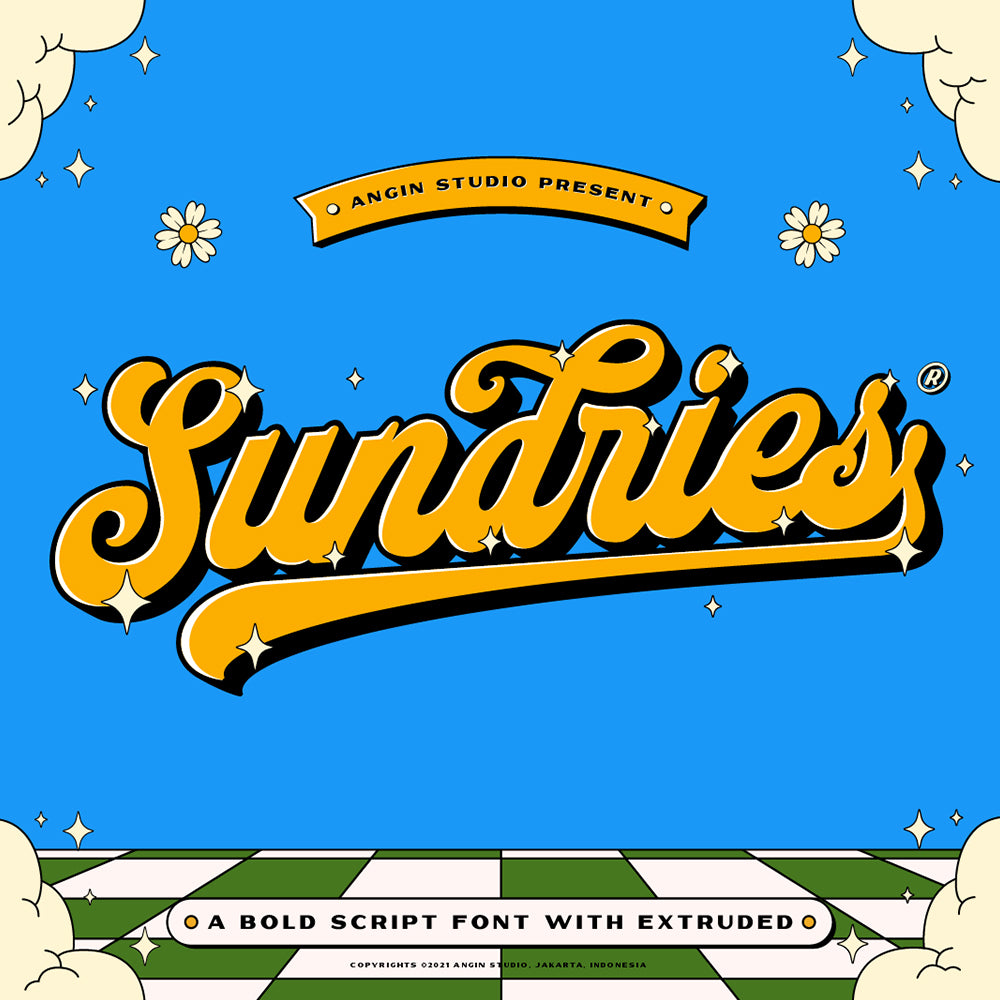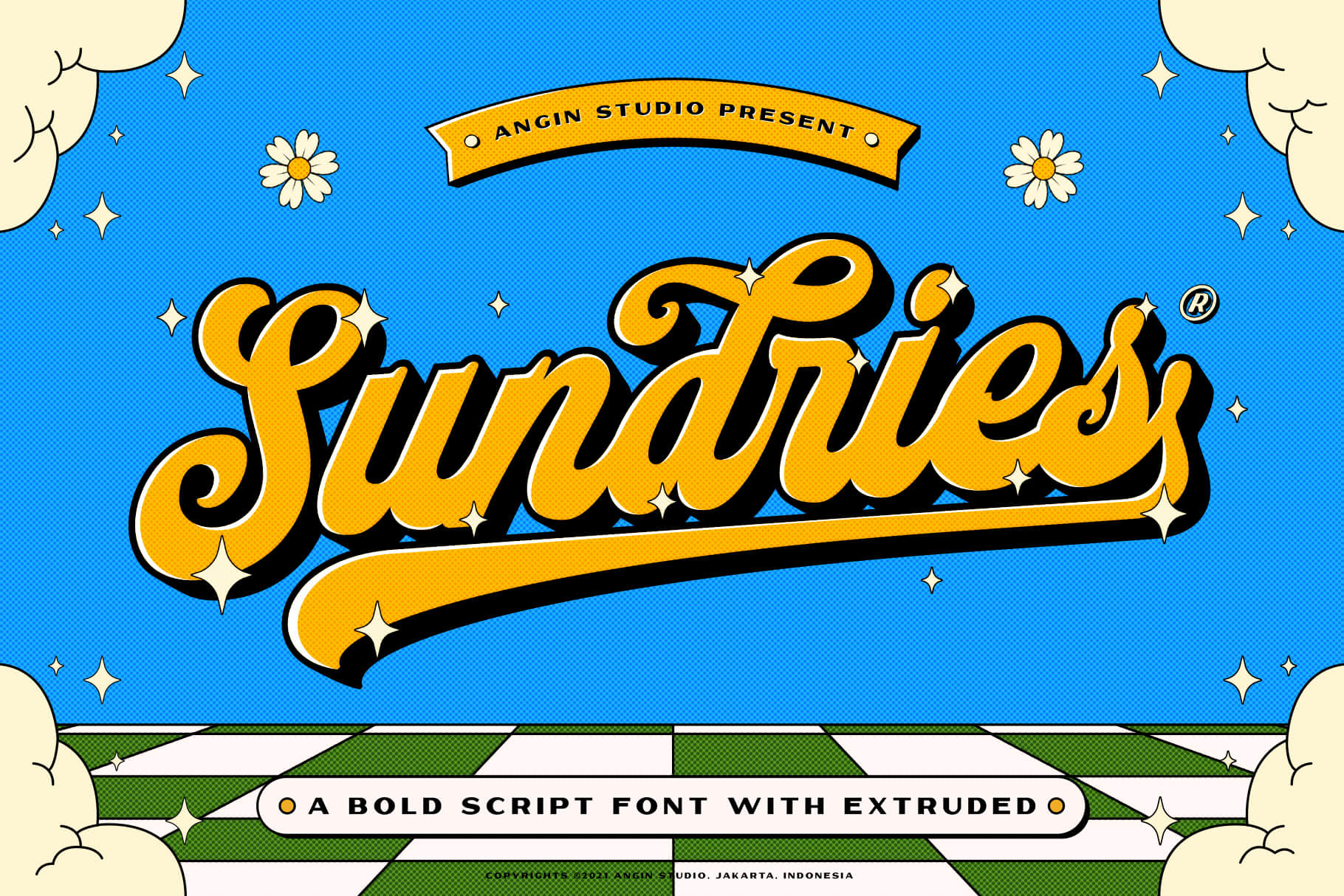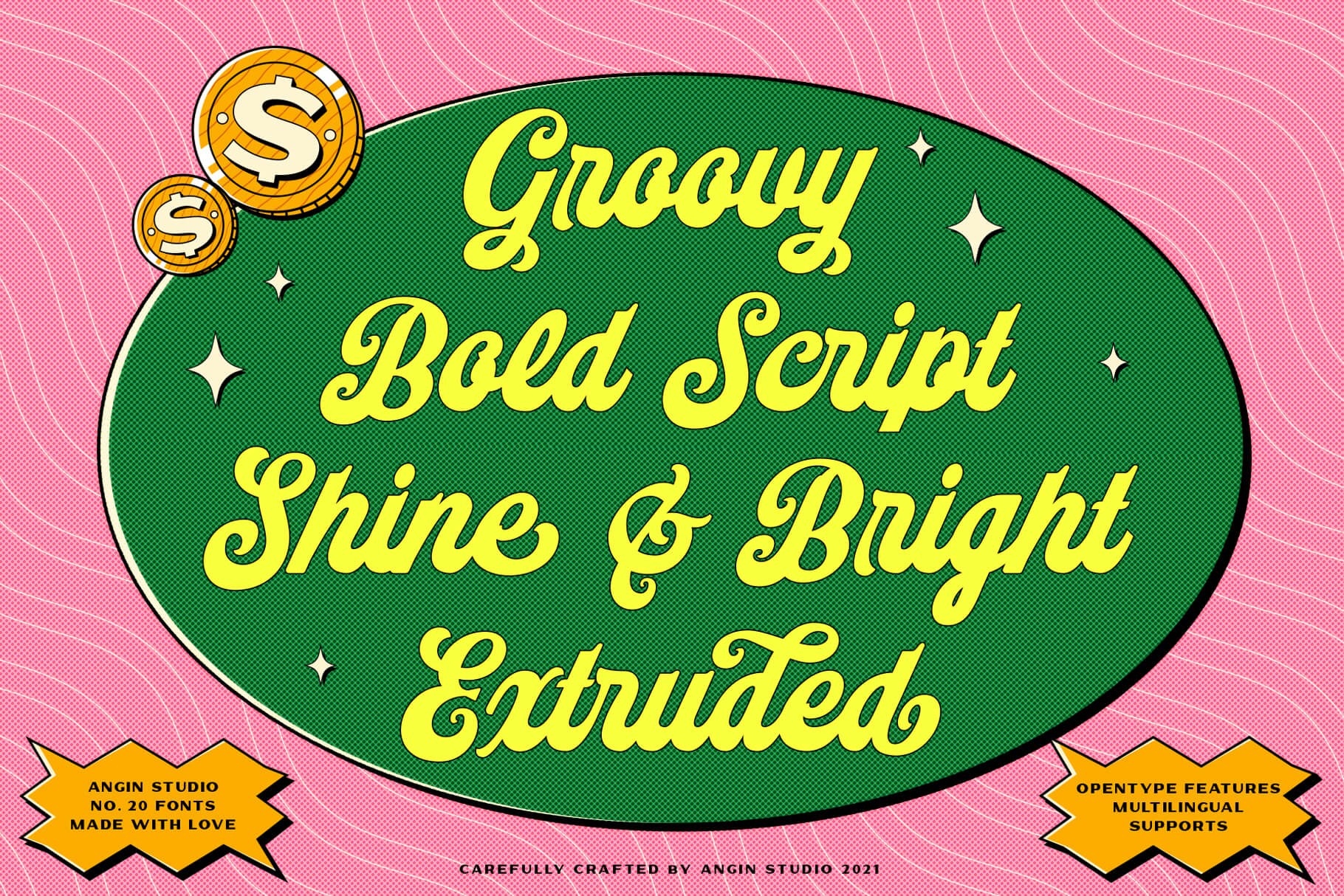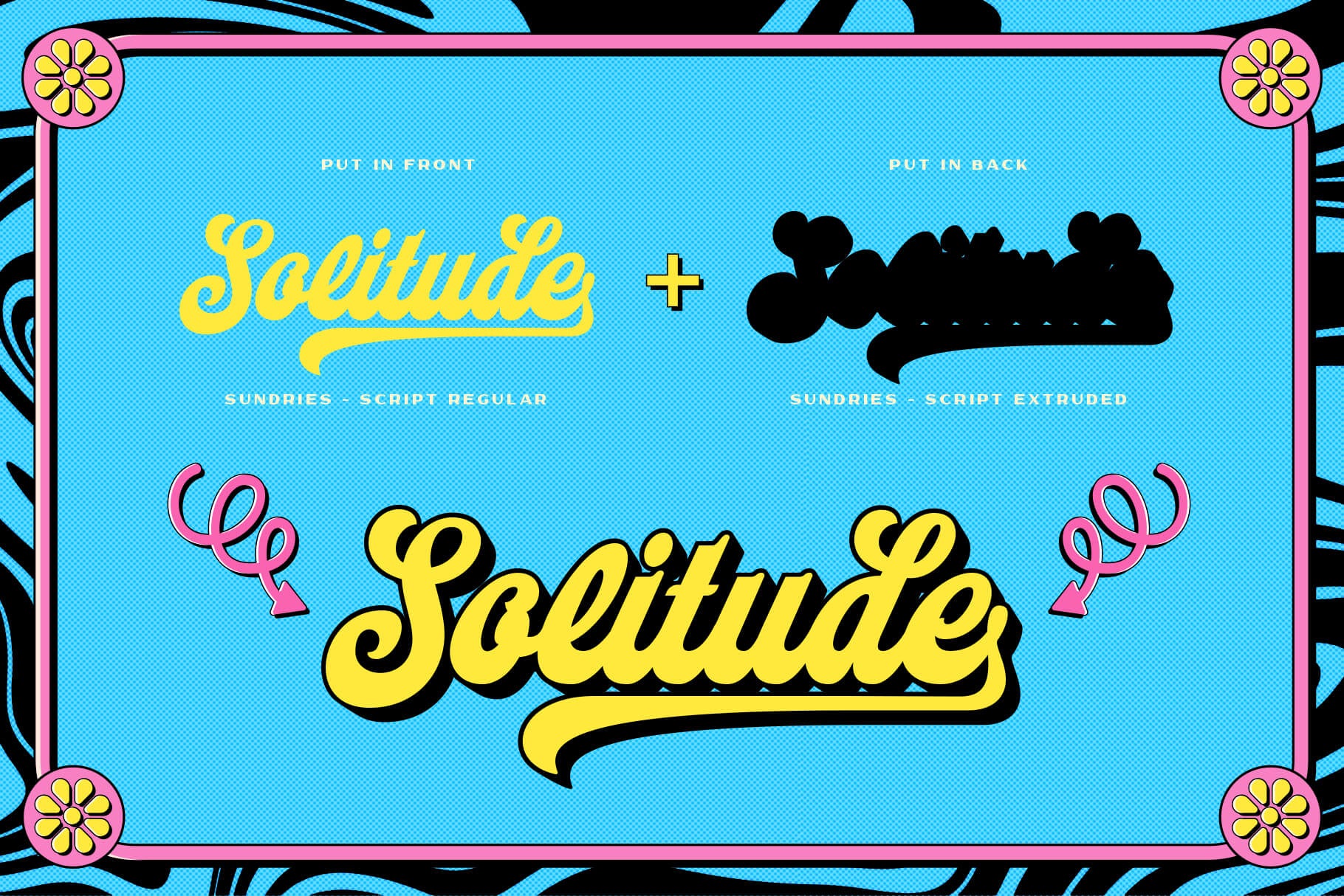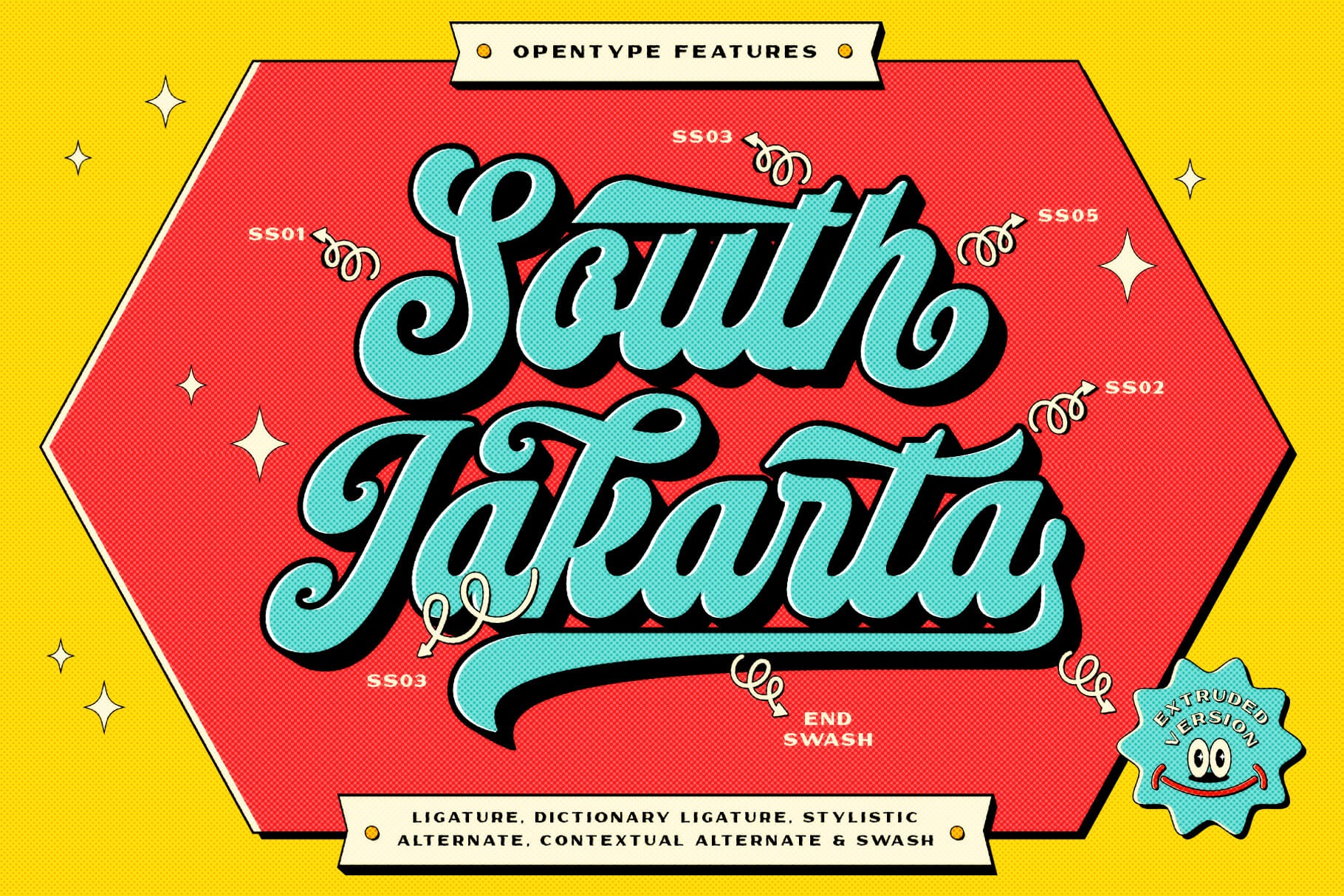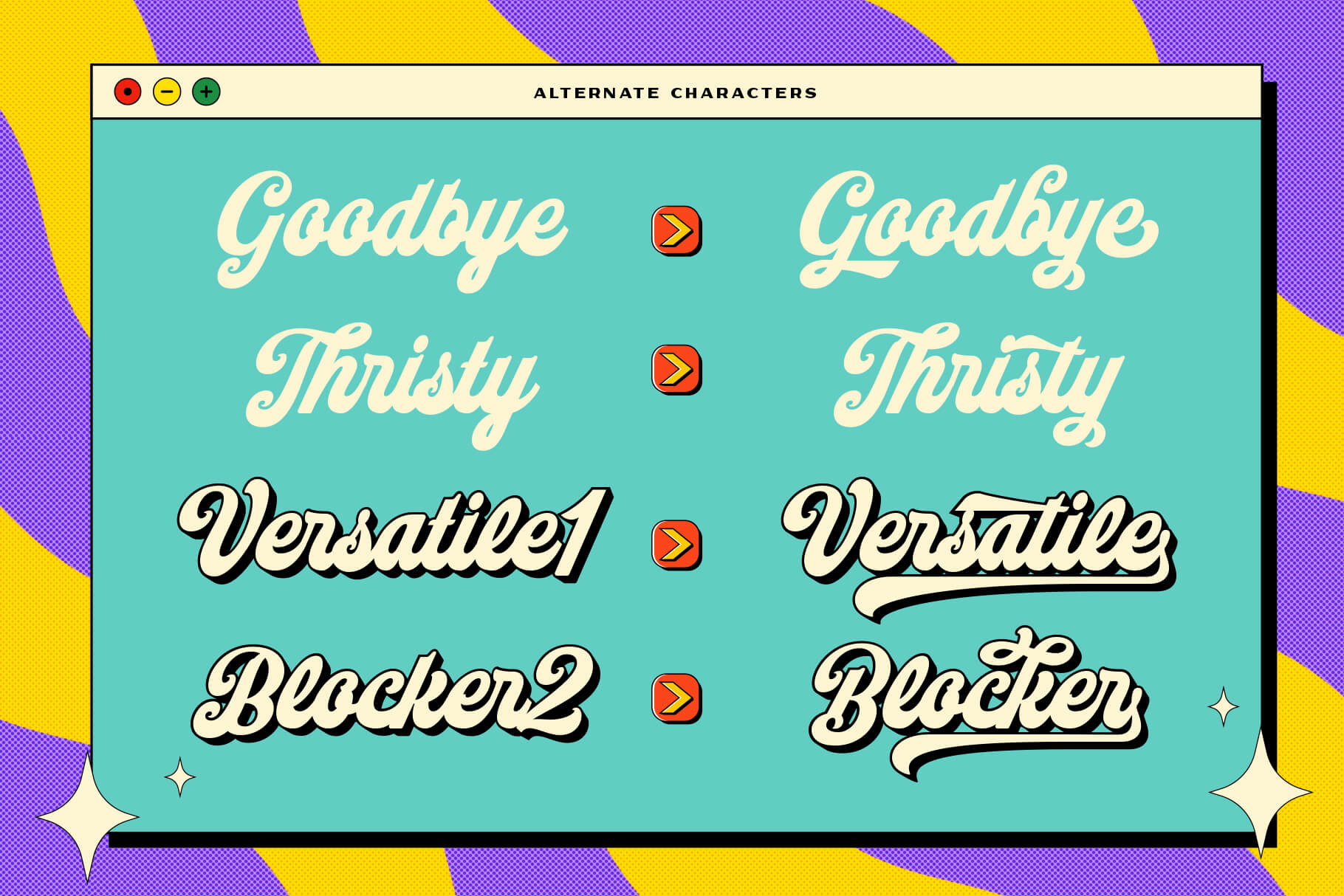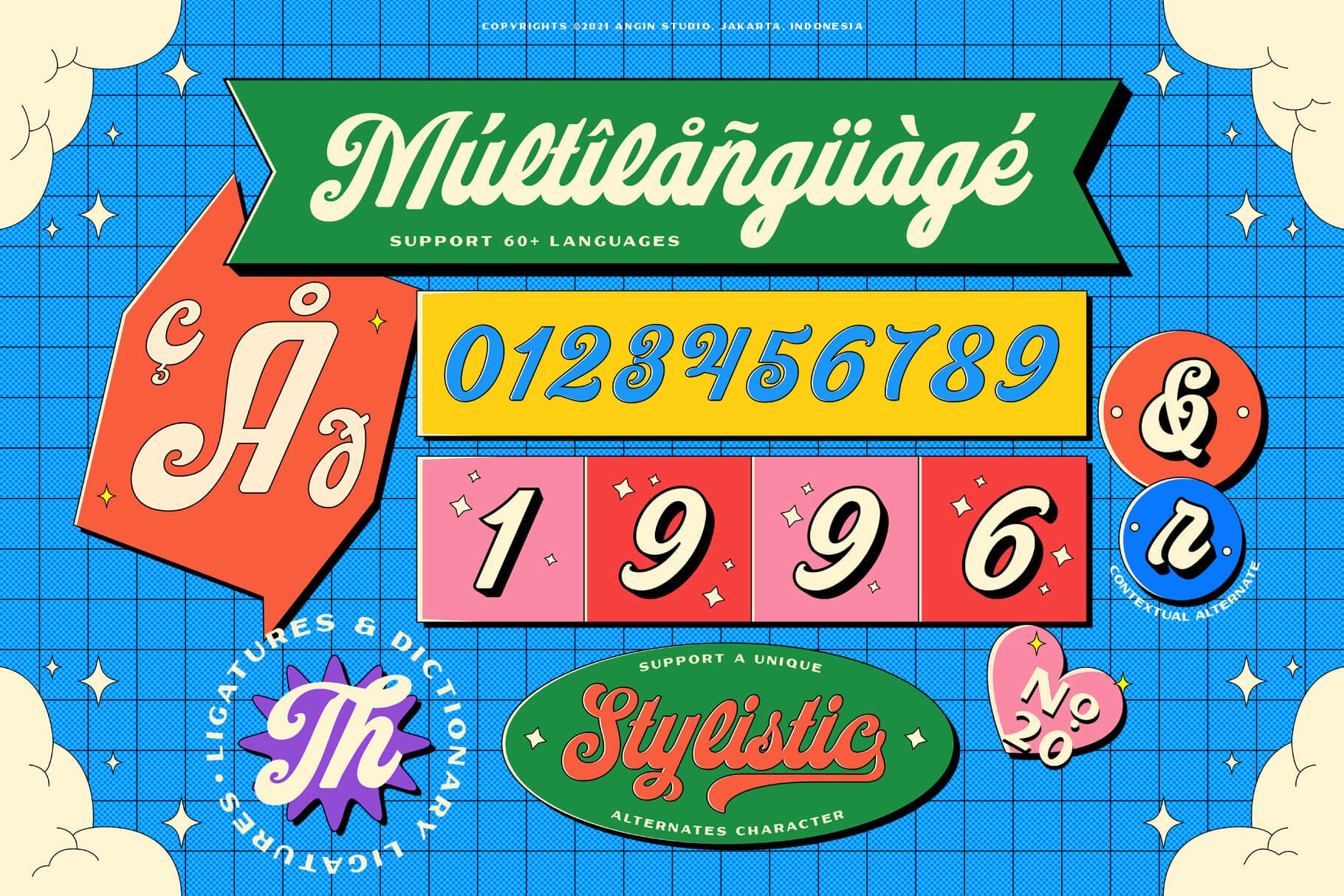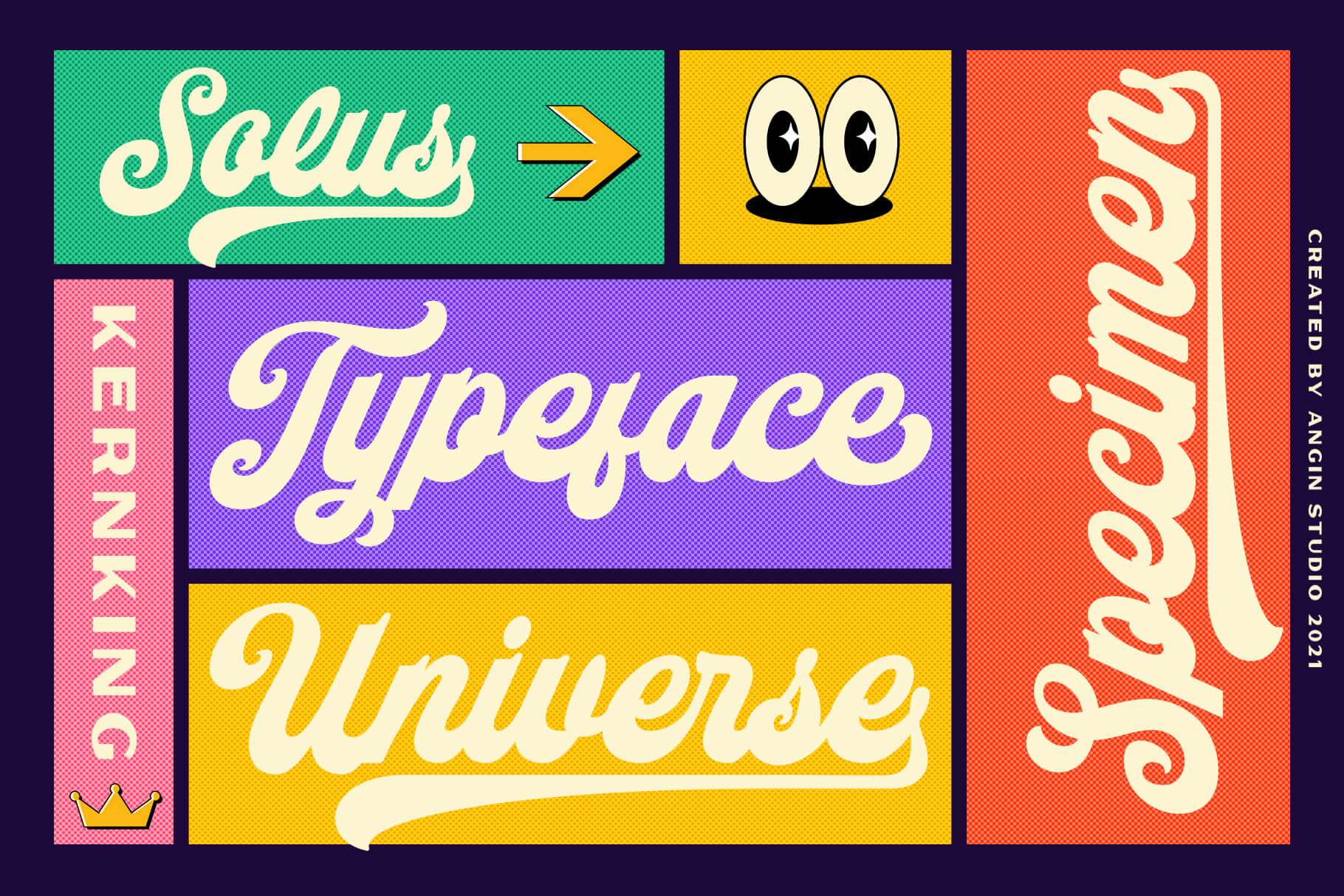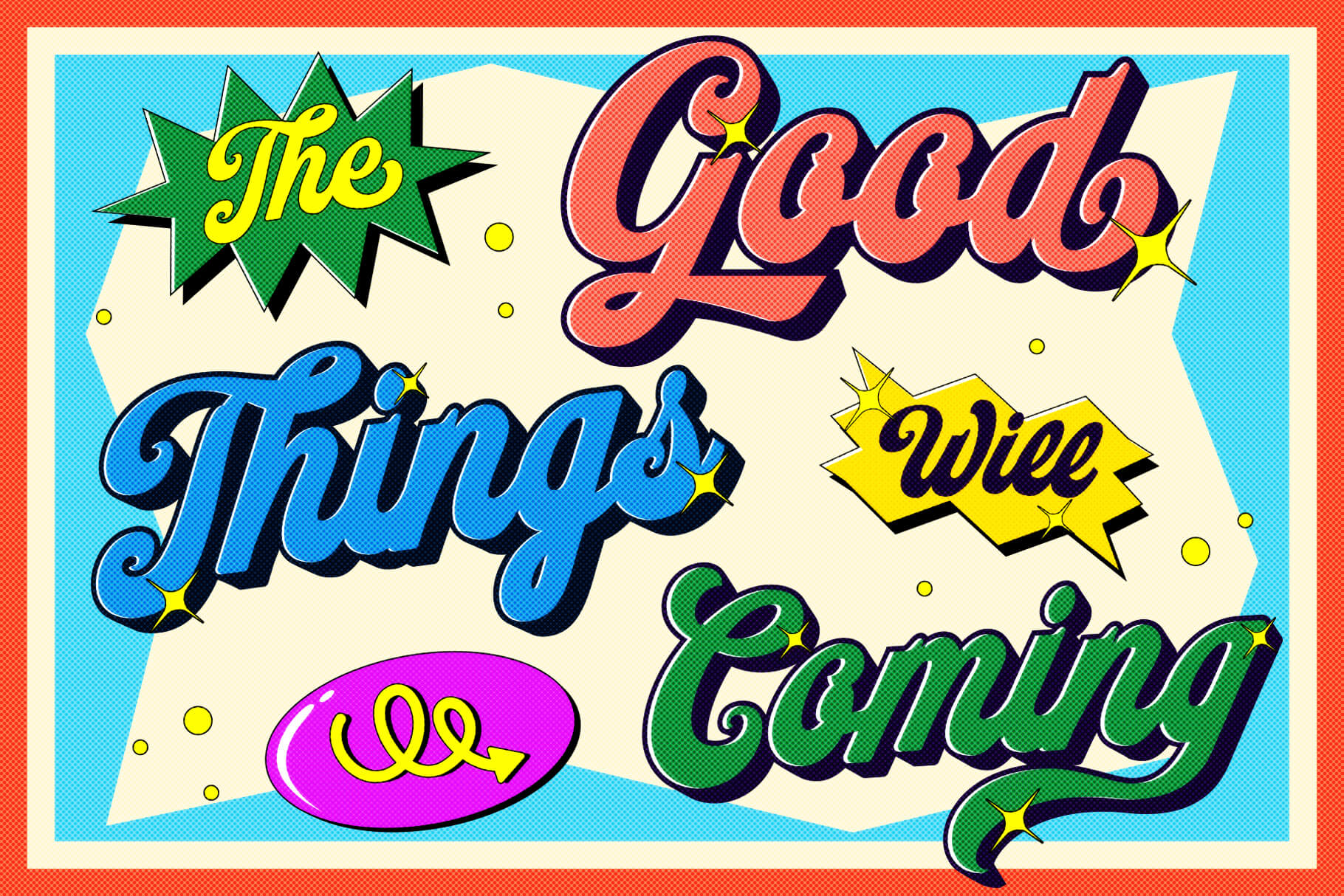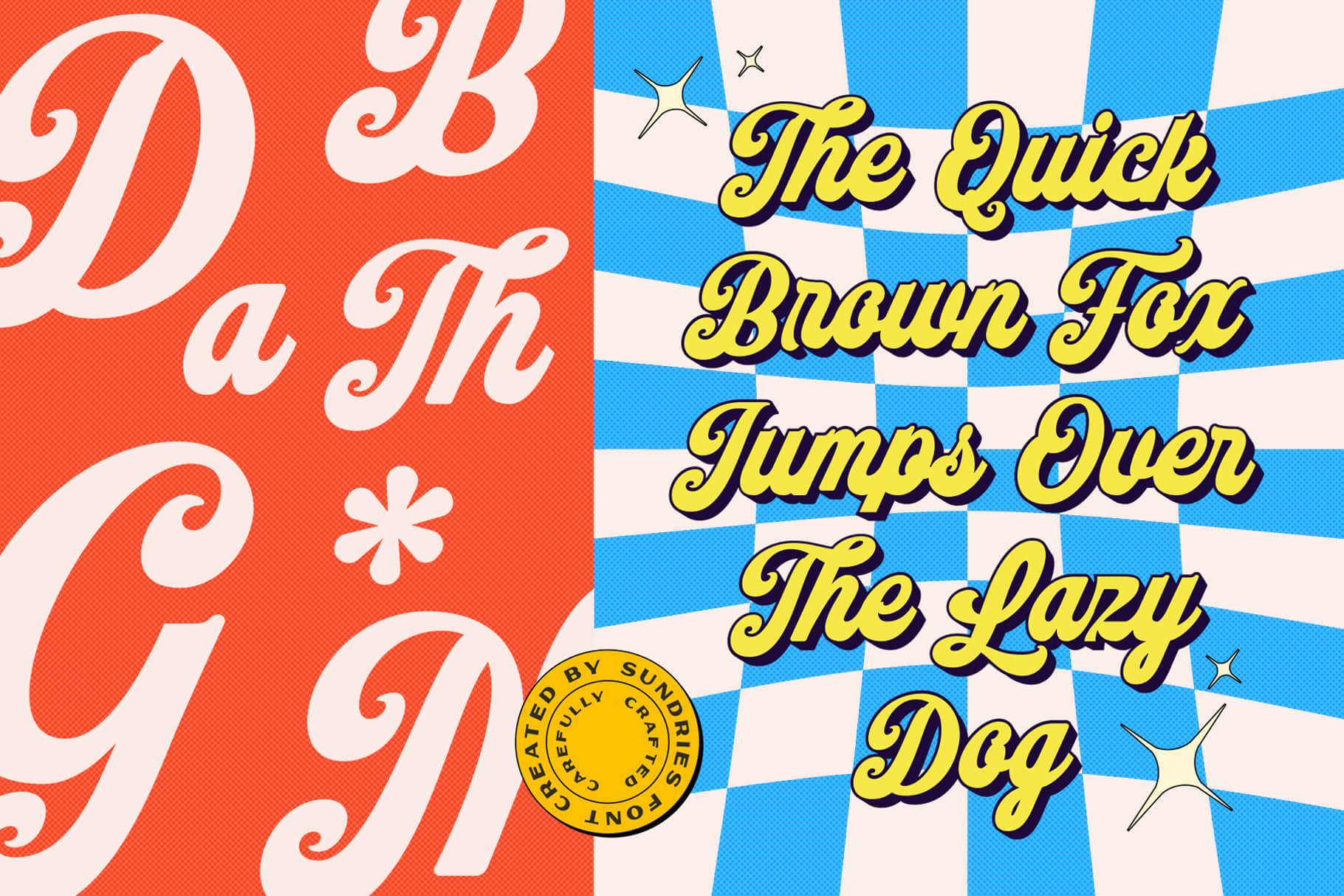
Sundries Retro Bold Script Font
Angin Studio
Sundries Bold Script created from our explorations which inspired by 90’s retro style and pop culture visual design we saw on old comics, cartoon and poster. The strong bold character with a nice flow always make us feel comfortable and raising our mood to the better. Now we create this lovely font to share our feeling about this type to you.
Sundries Bold Script can help you with many of your project like Logo Design, Poster, Sticker, Album Cover, T-Shirt, and many more. Comes with Extruded, Perfectly paired Sans Serif, and many features which can make the type work even better.
• Ligatures
• Stylistic Alternate
• Swash
• Multilingual Language
Sundries Retro Bold Script Font is a 90’s-inspired typeface featuring strong, bold characters with a fluid design. It includes multiple formats (.otf, .ttf, .Woff, .Woff2) for the script, extruded, and sans serif styles, along with a character set PDF and user guide, and offers features such as ligatures, stylistic alternates, swashes, and multilingual support.